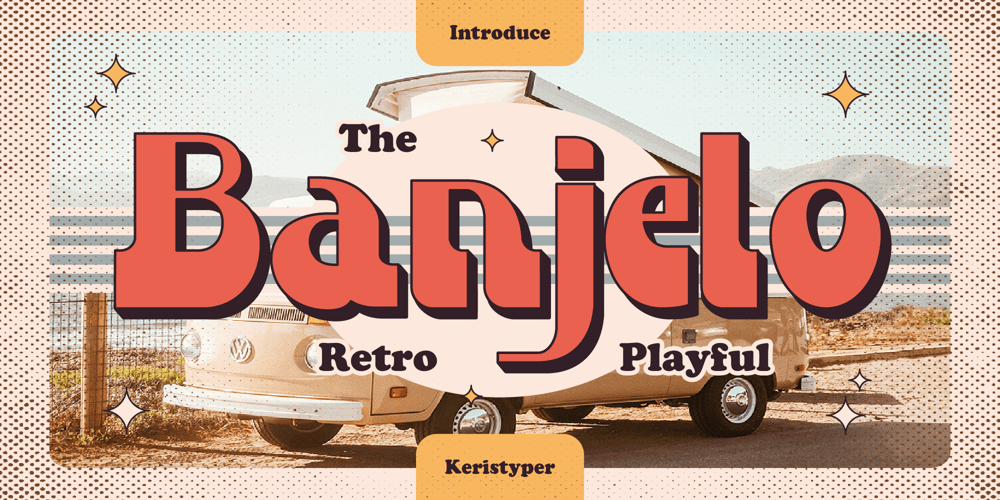
Banjelo
Banjelo font
Banjelo Font Family was designed by Tezar Tantular and published by Keristyper Studio. Banjelo contains 1 styles and family package options. Banjelo is inspired by the 90’s vibes, making it feel retro, vintage, and classy. This font is good for logo design, Social media, Movie Titles, Books Titles, short text even long text letters, and good for your secondary text font with script, sans, or serif.Featured:* Standard Uppercase & Lowercase* Numeral & Punctuation* Multilingual : ä ö ü Ä Ö Ü ß ¿ ¡* Alternate & Ligature* PUA encodedWe recommend programs that support the OpenType feature and the Glyphs panel such as Adobe applications or Corel Draw. so you can use all the variations of the glyphs.Hope you enjoy our fonts!